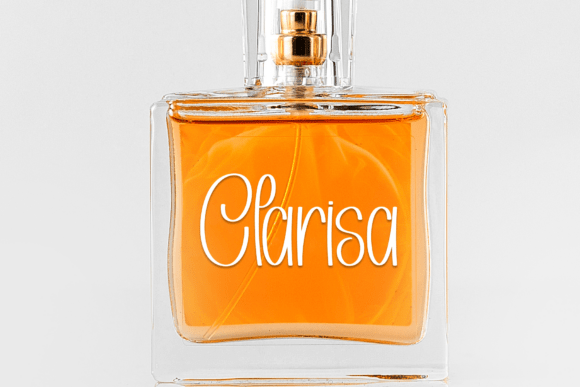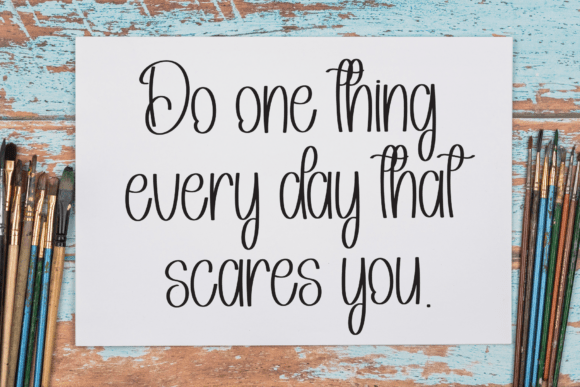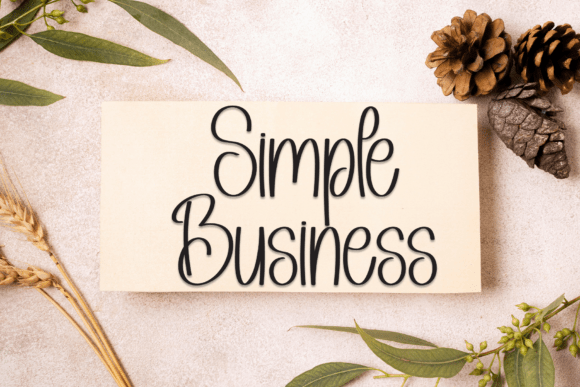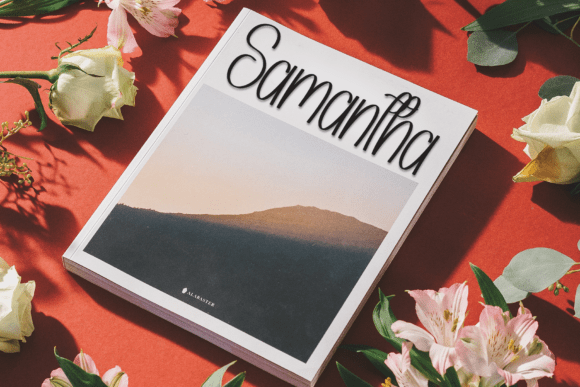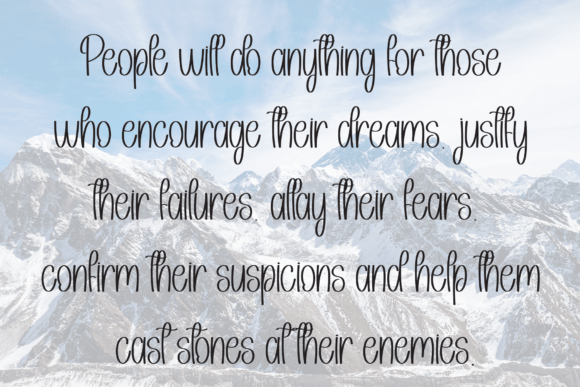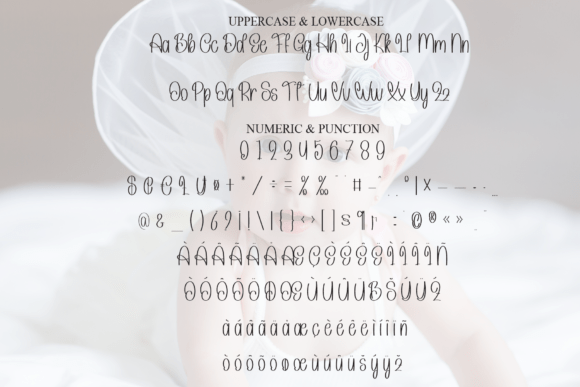
For those seeking to add a touch of whimsy to their creations, the Cute Babyish Font is a stylish handwritten script that brings modern elegance and a playful twist to any design. With its fluid strokes and charming curves, this versatile typeface is perfect for logos, packaging, and invitations.
By incorporating the Cute Babyish Font into your designs, you can infuse warmth, sophistication, and creativity into every project, setting yourself apart from the crowd and making a lasting impression on your audience.
Cute Babyish Font Key Features
- Unique Characteristics: Features rounded edges, subtle curves, and a playful touch, making it perfect for children’s books, nursery decor, and baby-related designs
- Kerning and Ligatures: Includes advanced kerning and ligature pairs for improved text flow and readability
Cute Babyish Font Review
First off, I love the whimsical feel of the Cute Babyish Font. ✨ The rounded edges and soft curves give it a playful, childlike vibe that’s perfect for projects like children’s books, nursery decor, or even baby-related products. The font is also incredibly versatile, making it suitable for a wide range of applications, from headings to body text.
Some of the font’s key features that work well include:
- High legibility, even at small font sizes ✨
- Wide language support, including most European languages ✨
- A generous set of glyphs, including ligatures and ornaments ✨
- The font may not be the best choice for formal or professional projects, due to its playful nature ⚠️
- The font’s rounded edges can sometimes make it difficult to read at very small font sizes ⚠️
Overall, I think the Cute Babyish Font is a delightful addition to any designer’s toolkit. While it may not be suitable for every project, its unique personality and versatility make it a great choice for projects that need a touch of whimsy.
Getting the Most Out of Cute Babyish Font
To get the most out of the Cute Babyish Font, try the following tips:
– Use it sparingly to create a playful, whimsical feel.
– Pair it with bold fonts for contrast.
– Experiment with different font sizes and colors to add visual interest.
The Cute Babyish Font is perfect for:
– Children’s book covers or illustrations.
– Baby shower invitations or decorations.
– Whimsical social media graphics or blog posts.